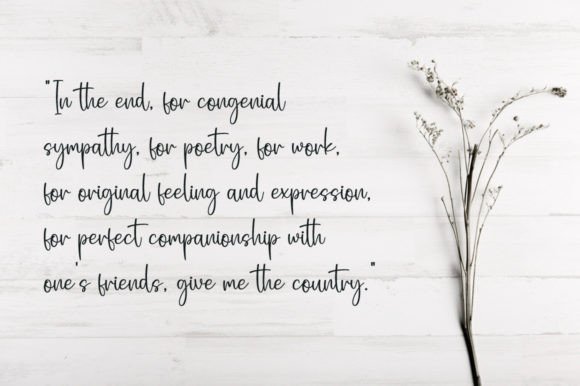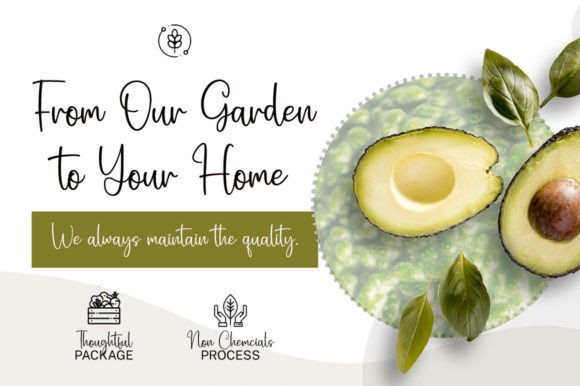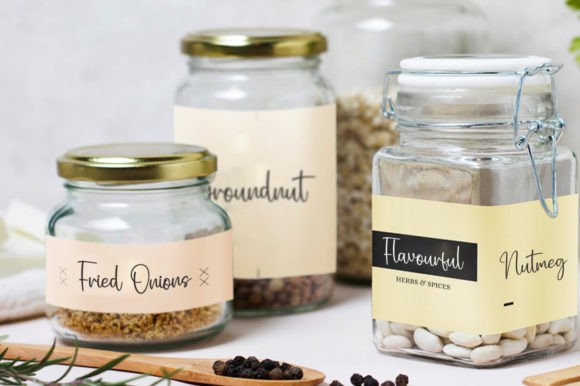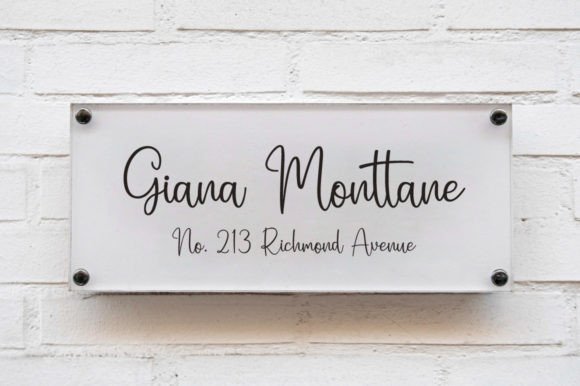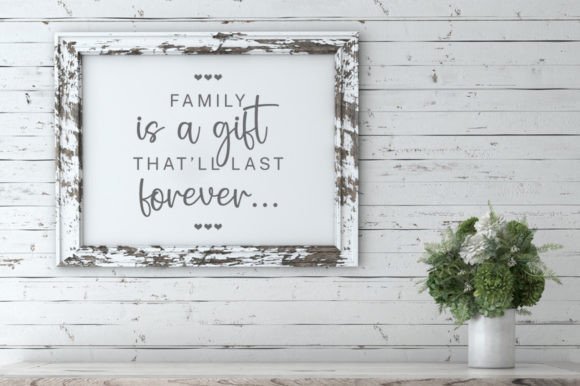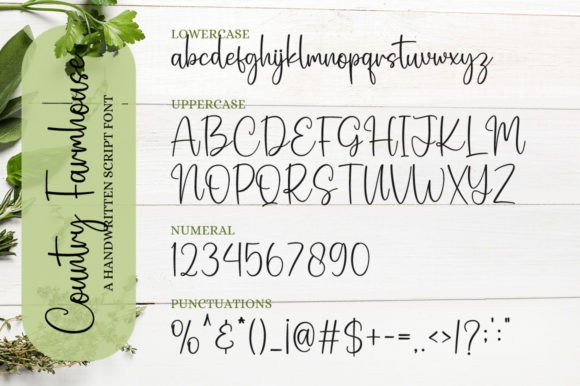
Introducing Country Farmhouse Font: A Timeless Handwritten Classic
Are you a designer, crafter, or DIY enthusiast looking for a font that exudes warmth, coziness, and a touch of rustic charm? Look no further than the Country Farmhouse Font, a lovely and timeless handwritten font that’s perfect for creating eye-catching logos, branding, and quotes.
Handwritten fonts have a unique way of capturing the essence of human touch and personality. They add a personal and emotive feel to any design, making them instantly more relatable and engaging. The Country Farmhouse Font is no exception, with its elegant and flowing script that evokes a sense of nostalgia and warmth.
What Makes Country Farmhouse Font Special?
So, what sets the Country Farmhouse Font apart from other handwritten fonts? Here are just a few reasons why it’s a standout choice for designers and crafters:
• Timeless appeal: Unlike trendy fonts that may quickly go out of style, the Country Farmhouse Font has a timeless quality that ensures it will remain relevant for years to come.
• Versatility: This font is incredibly versatile, making it suitable for a wide range of design applications, from logos and branding to quotes, posters, and more.
• Elegant and legible: The Country Farmhouse Font is both elegant and highly legible, making it perfect for creating designs that require a touch of sophistication and refinement.
• Easy to read: The font’s clear and flowing script ensures that your designs are easy to read, even at smaller sizes.
The Country Farmhouse Font is an ideal choice for designers and crafters working on a variety of projects, including:
• Logos and branding: Create a lasting impression with a custom logo that showcases your brand’s personality and style.
• Quotes and posters: Add a touch of elegance and sophistication to your quotes and posters with this beautiful handwritten font.
• Stationery and invitations: Use the Country Farmhouse Font to create beautiful stationery, invitations, and greeting cards that exude warmth and personality.
• DIY projects: Whether you’re working on a craft project, a scrapbooking layout, or a home decor item, this font is the perfect choice for adding a personal touch.
Tips for Using Country Farmhouse Font
To get the most out of the Country Farmhouse Font, here are a few tips to keep in mind:
• Pair with complementary fonts: Combine the Country Farmhouse Font with complementary fonts to create visual interest and add depth to your designs.
• Experiment with colors: Try out different color schemes to find the perfect combination that complements your design and the font.
• Play with textures and patterns: Add texture and pattern to your designs to give them a more organic and handmade feel.
Font Name Country Farmhouse Font
Author Nirmala Creative
In conclusion, the Country Farmhouse Font is a timeless and elegant handwritten font that’s perfect for designers, crafters, and DIY enthusiasts. Its versatility, legibility, and charm make it an ideal choice for a wide range of design applications. Whether you’re creating logos, branding, quotes, or DIY projects, this font is sure to add a touch of warmth and personality to your designs.